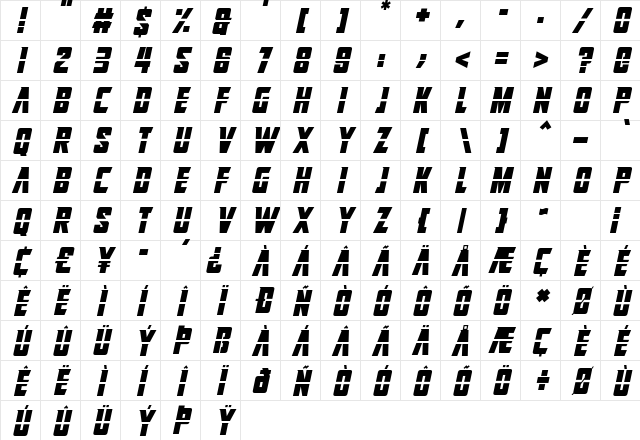
Complete Adrenaline Hit Italic glyph index. Displaying only characters natively supported by Adrenaline Hit Italic font.
Adrenaline Hit is a composed and adaptable typeface that performs quietly and consistently across a wide range of design contexts. The slanted form adds forward momentum and visual energy.